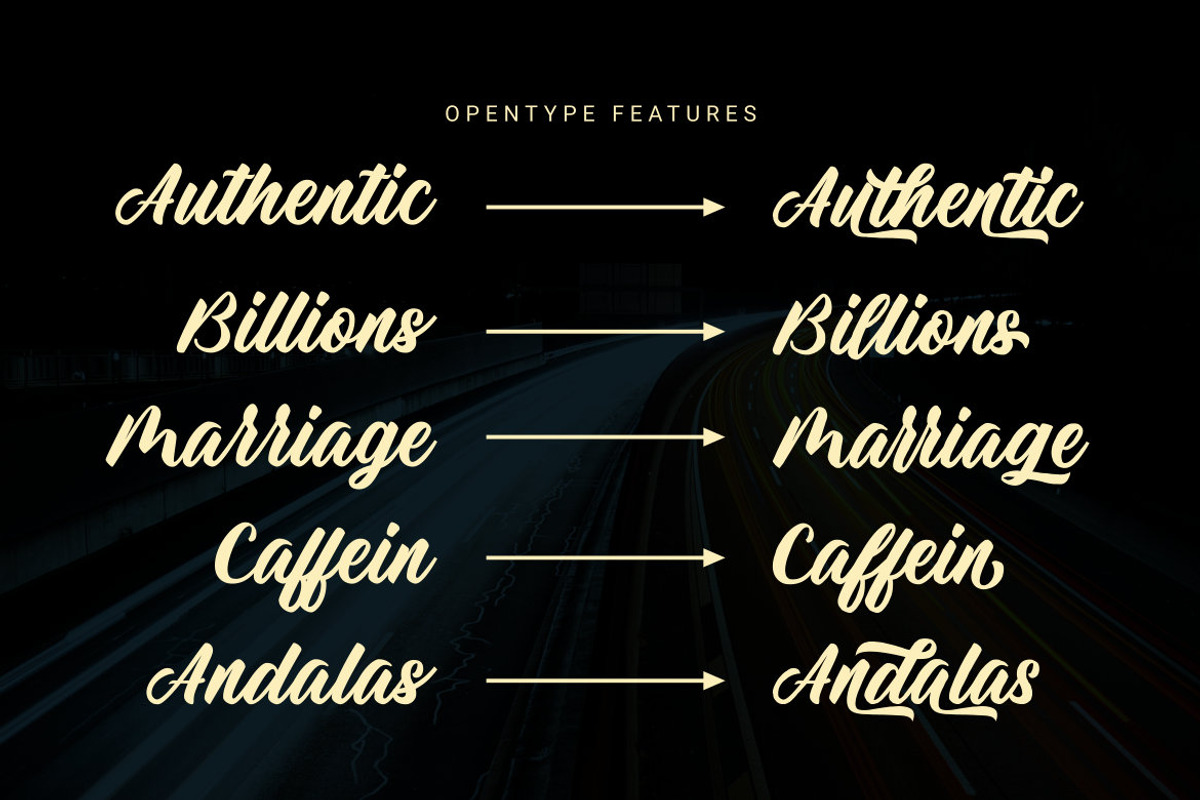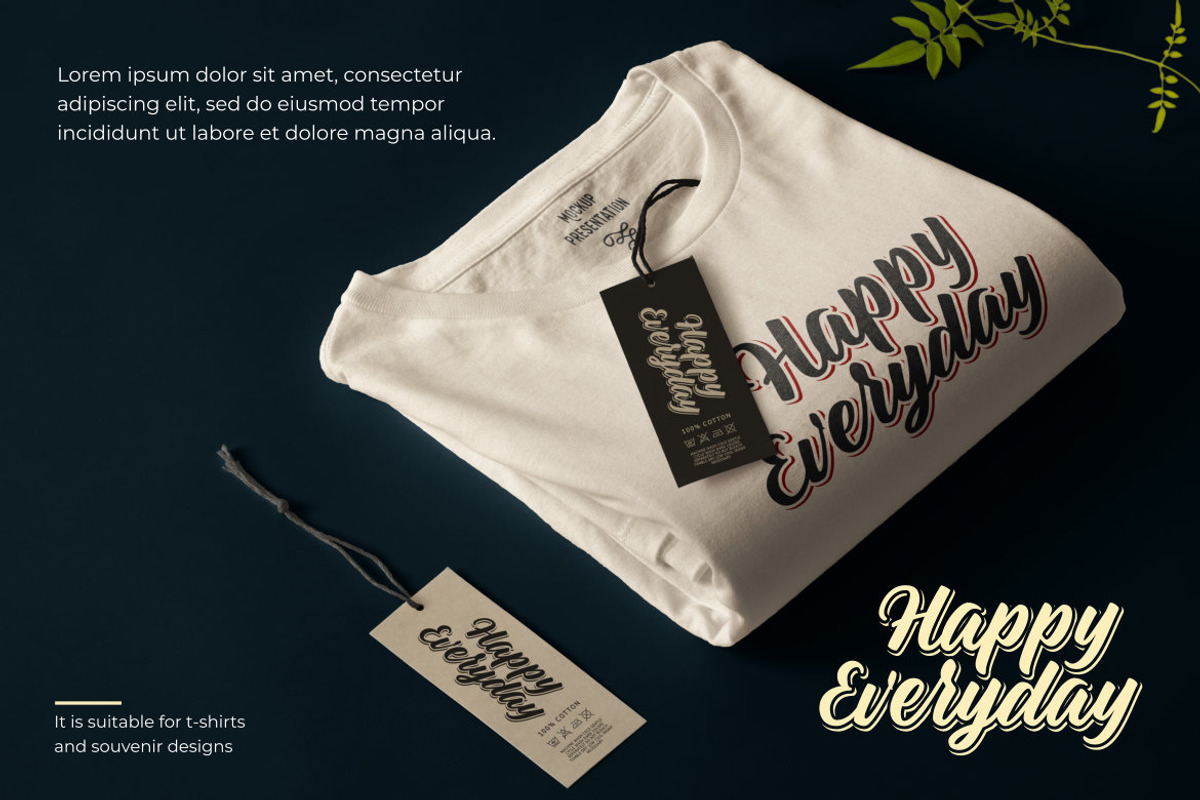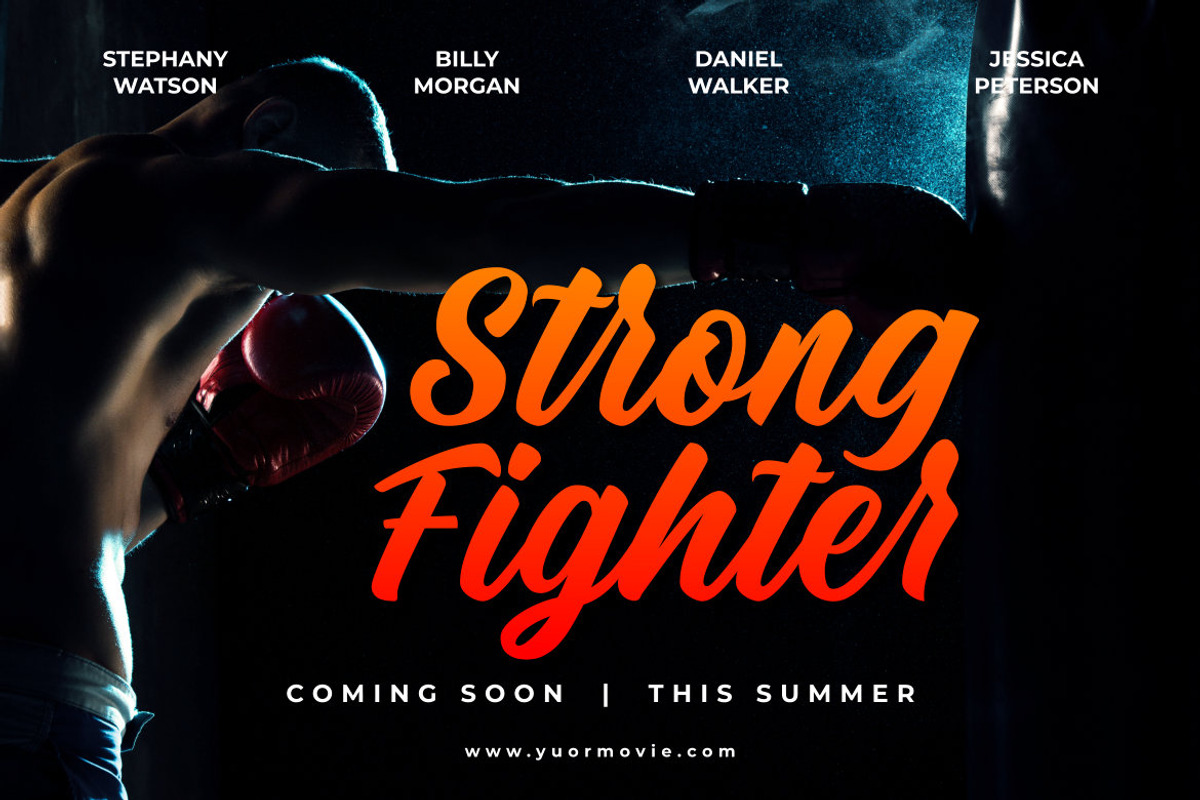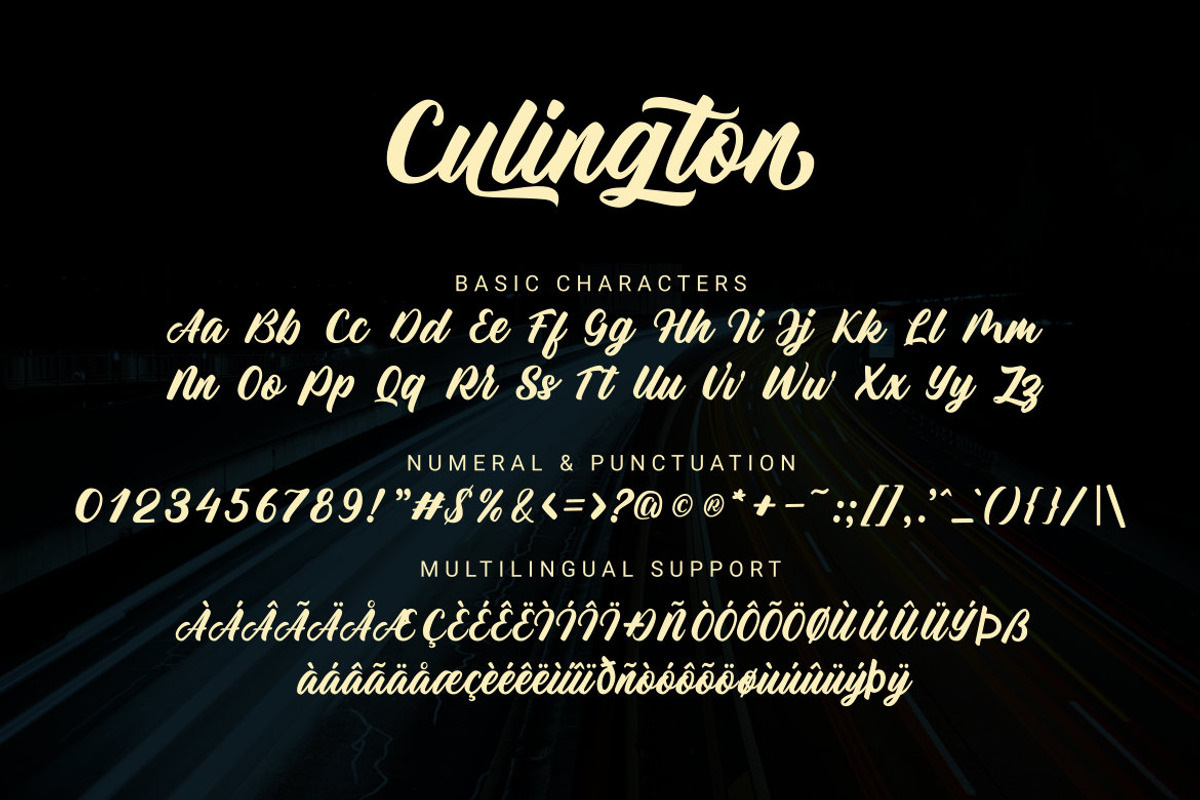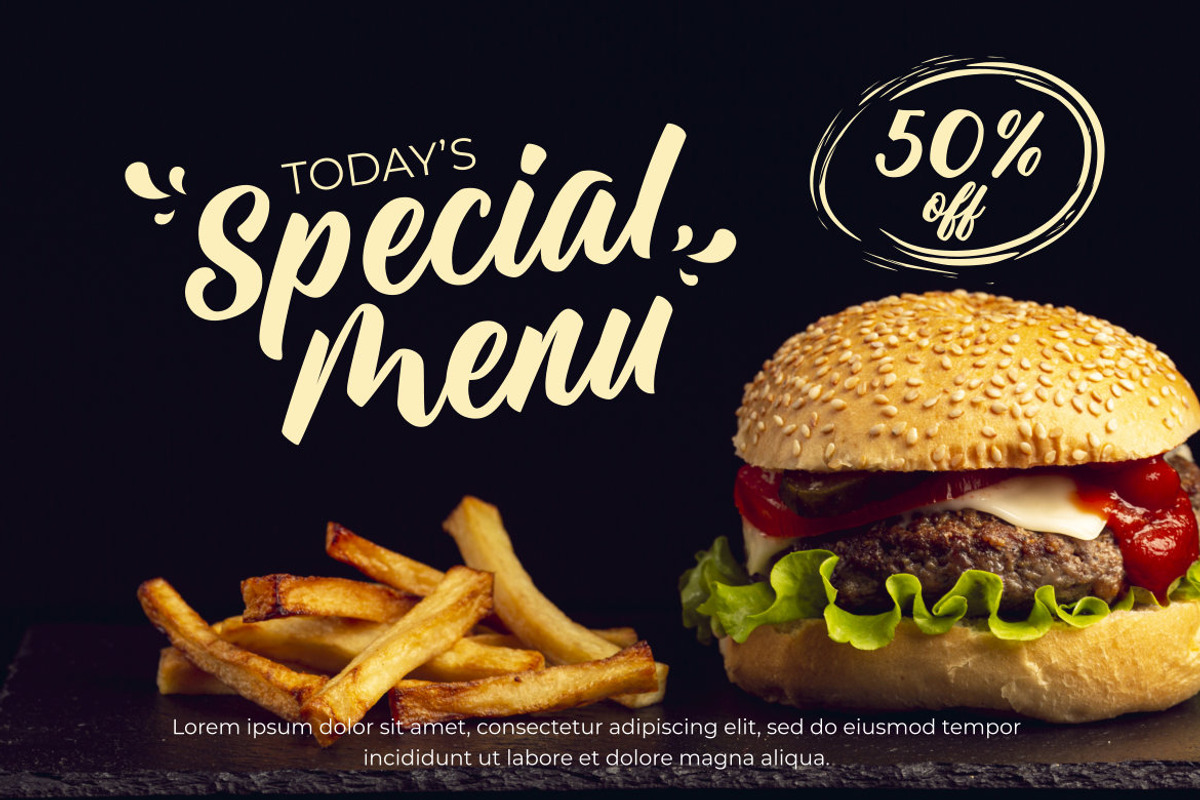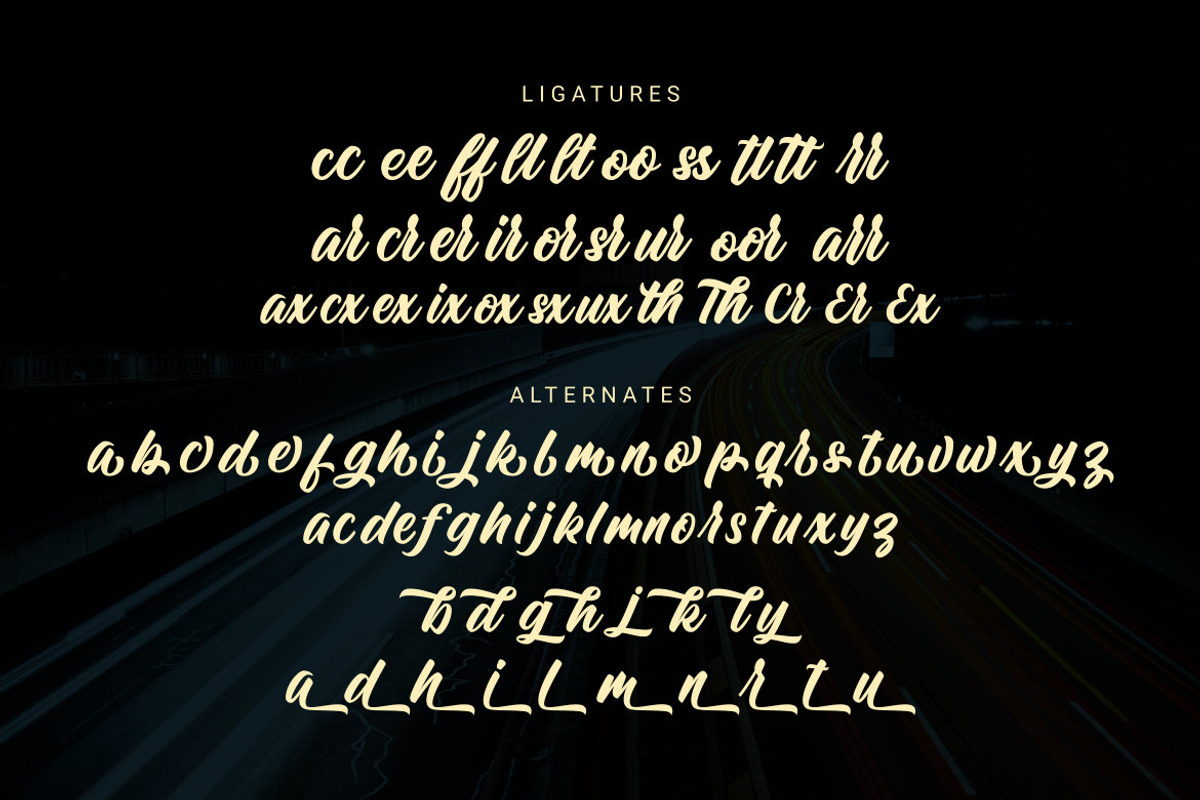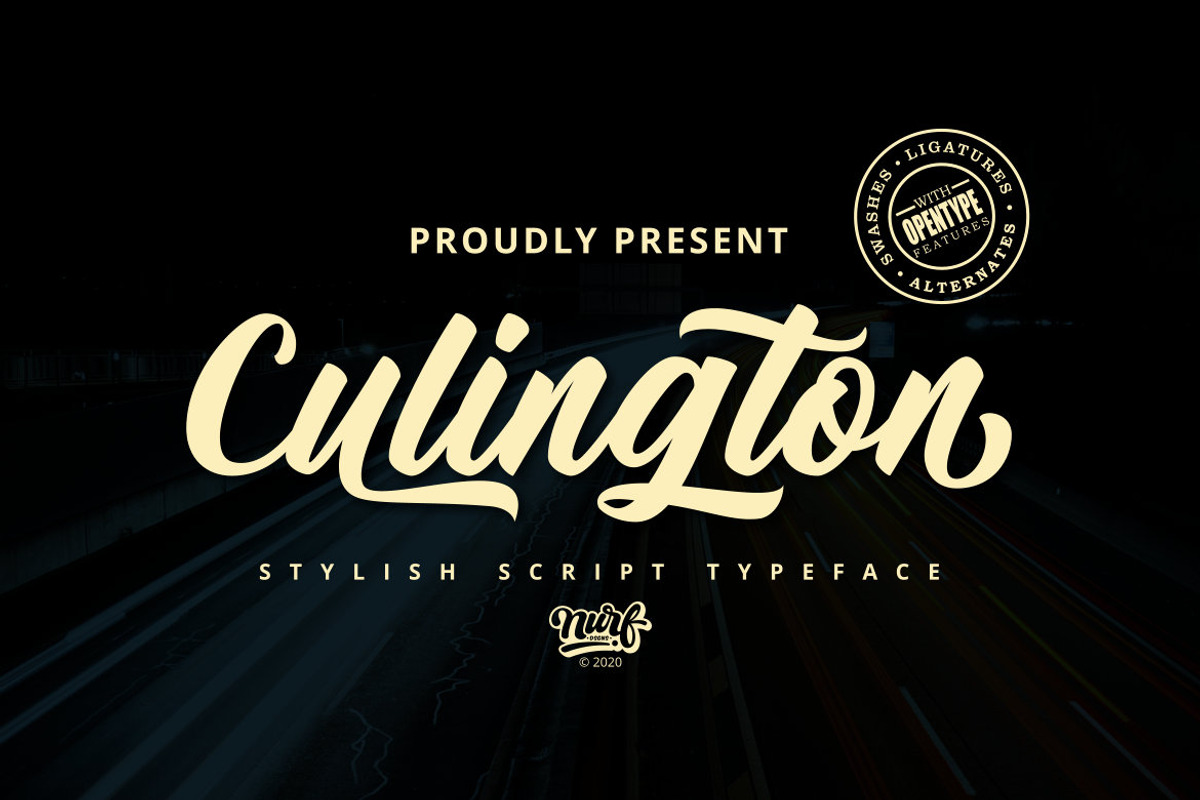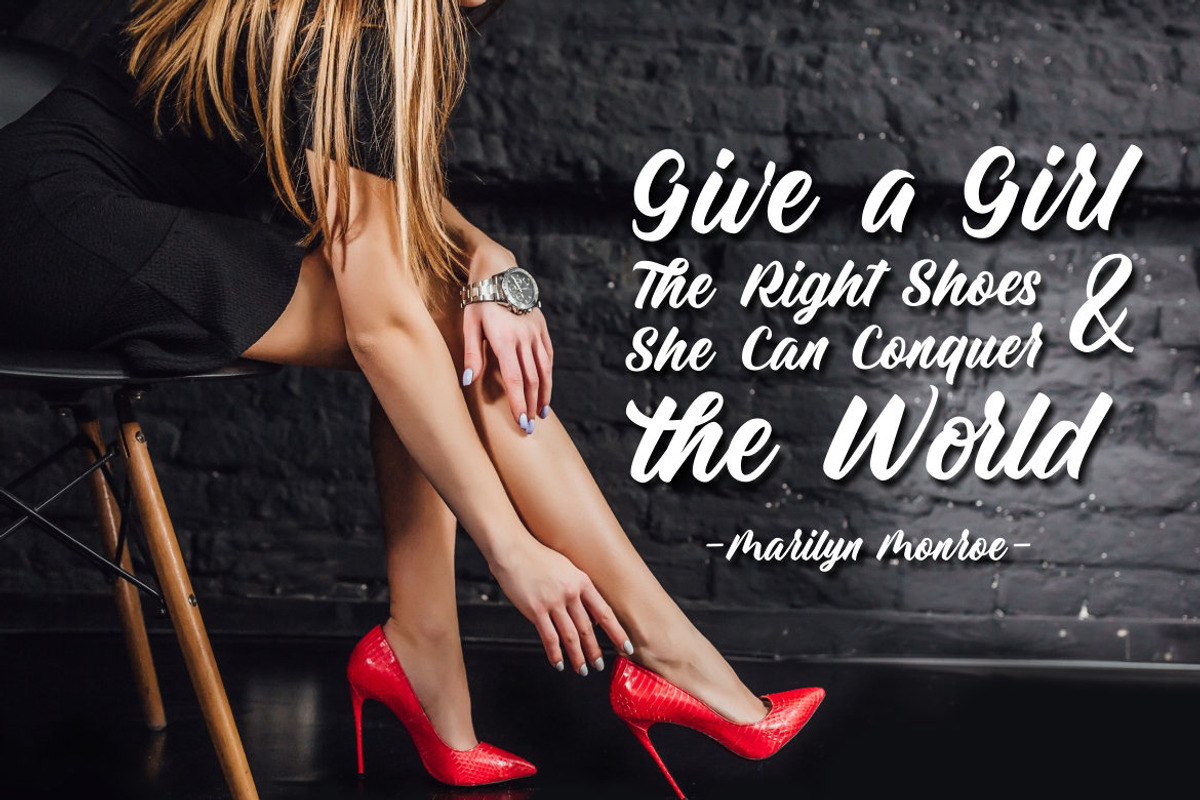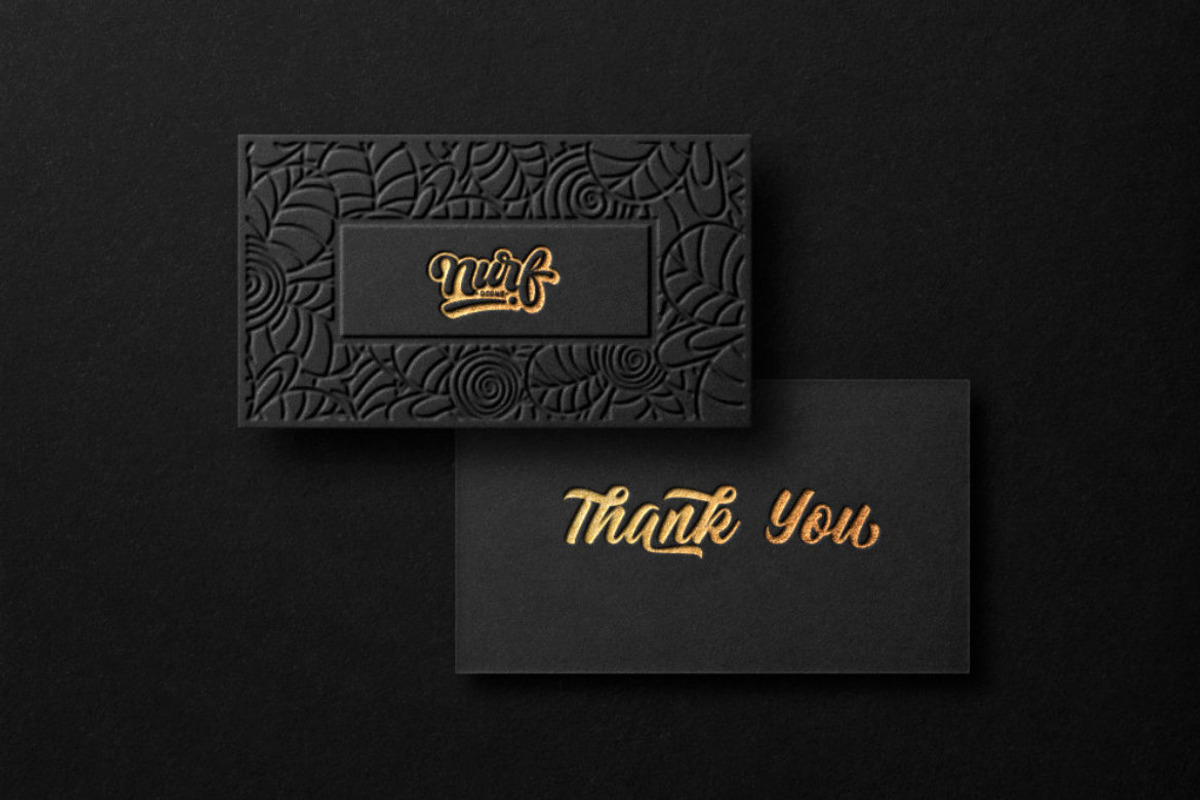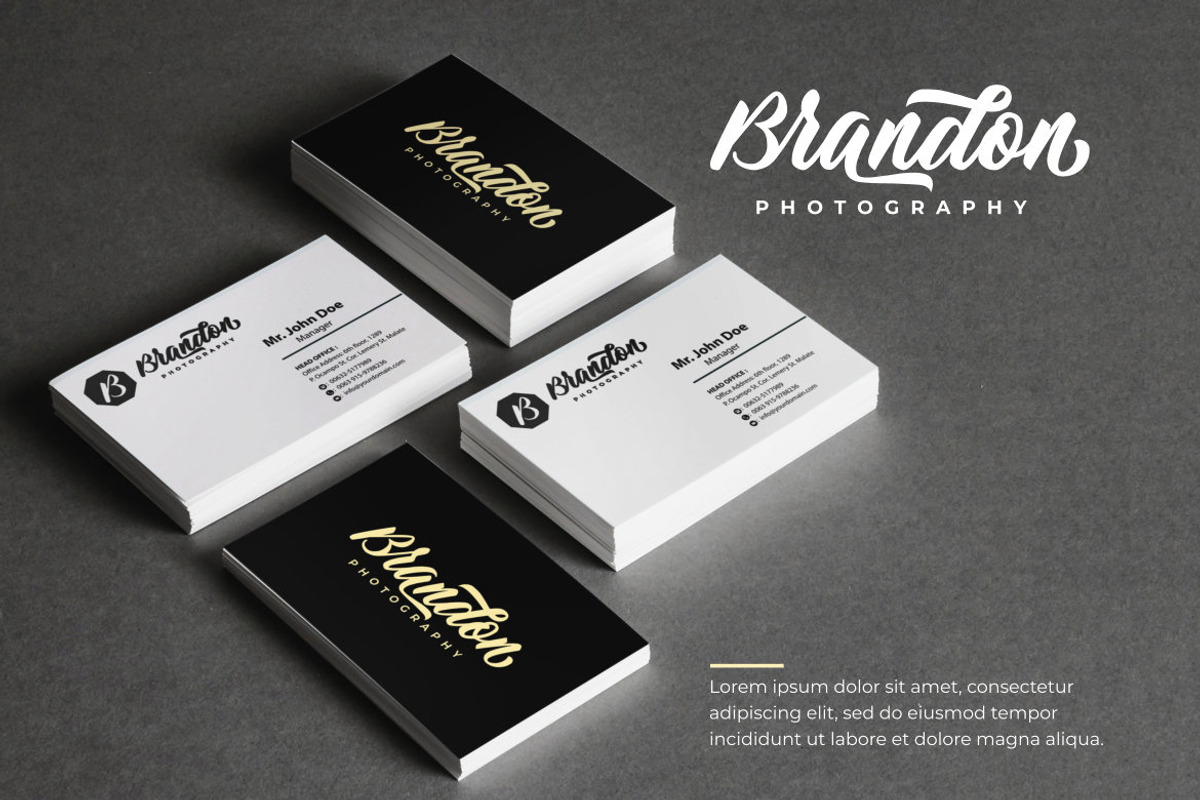
Culington – Stylish Script Typefce
Culington is a handwritten script font. This font is great for your next creative project such as logos, printed quotes, invitations, cards, product packaging, headers, Logotype, Letterhead, Poster, Apparel Design, Label, and etc.
Culington comes with uppercase, lowercase, numerals, punctuations, multilingual support and some variations on each characters include opentype feature (alternates and ligatures)